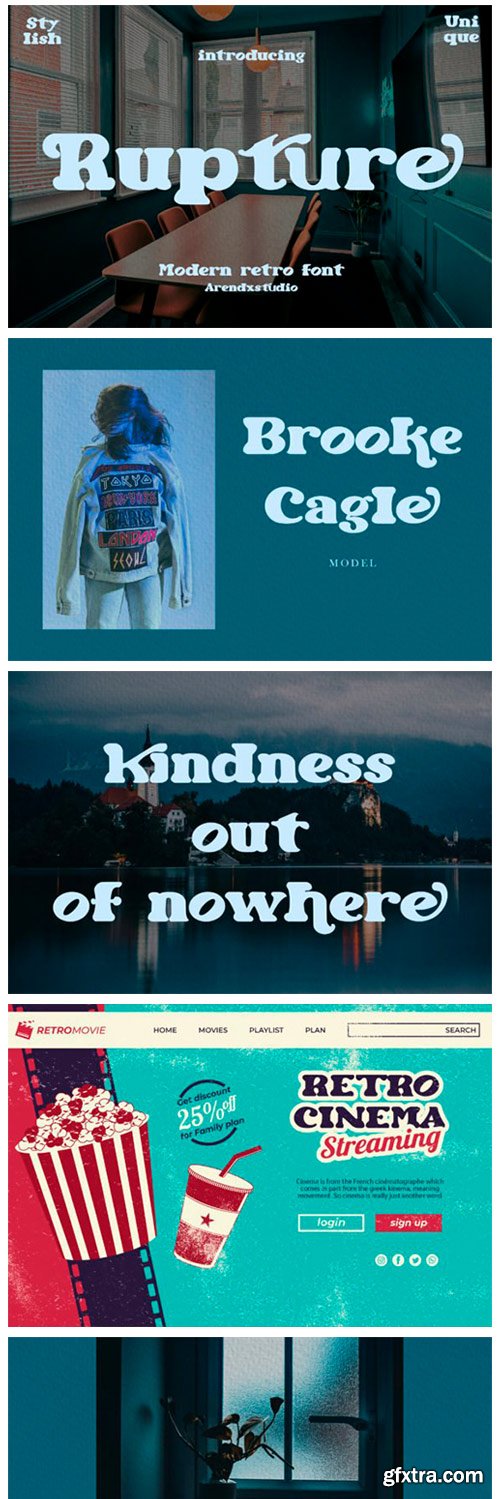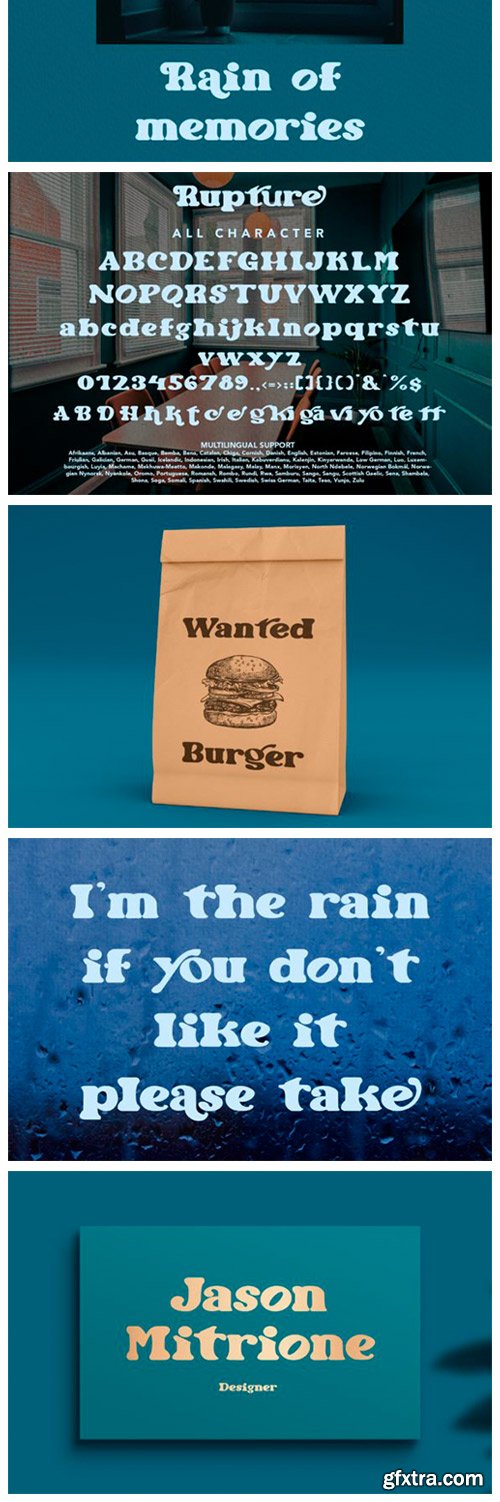
Rupture Font
Rupture is a modern and retro styled display font. This font is PUA encoded which means you can access all of the glyphs and swashes with ease! Add it confidently to your favorite creations and let yourself be amazed by the outcome generated.